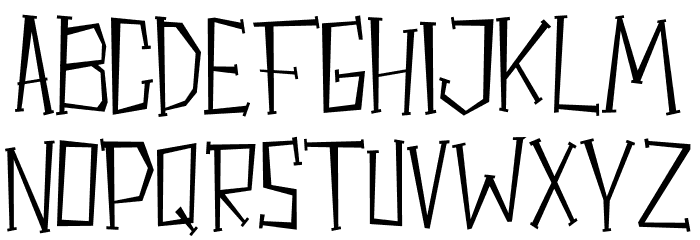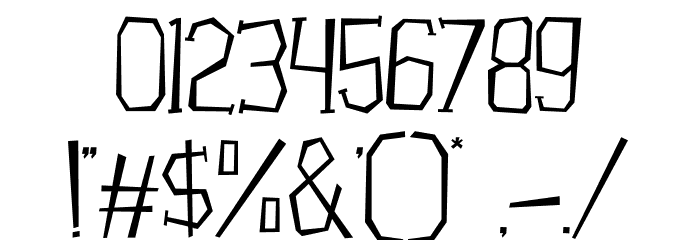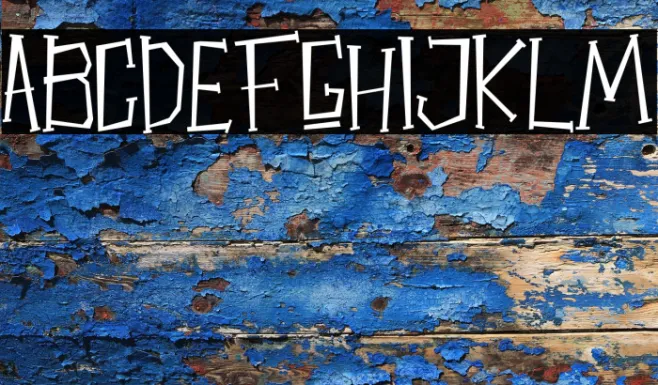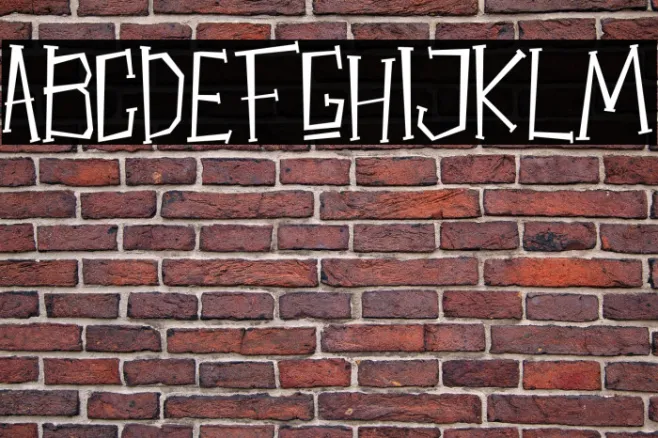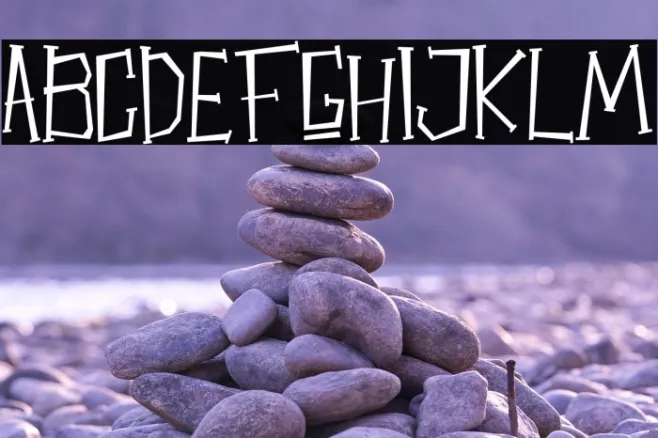
Hellaween Font
This font features a quirky and playful design with a spooky twist, perfect for Halloween-themed projects. The letters are tall and narrow, with uneven strokes that give them a hand-drawn appearance. The irregularity in the letterforms adds a sense of whimsy and unpredictability, making it ideal for creative and festive designs. The numbers and special characters maintain the same playful style, ensuring consistency across all text elements. This font captures the essence of fun and fright, making it a great choice for seasonal decorations, party invitations, and themed graphics.
A quirky, hand-drawn style font with a spooky, playful twist.
- Font: Hellaween
- Proposed Projects: Ideal for Halloween decorations, party invitations, themed posters, and creative graphics.
- Use Case: Headlines, Logos, Themed graphics